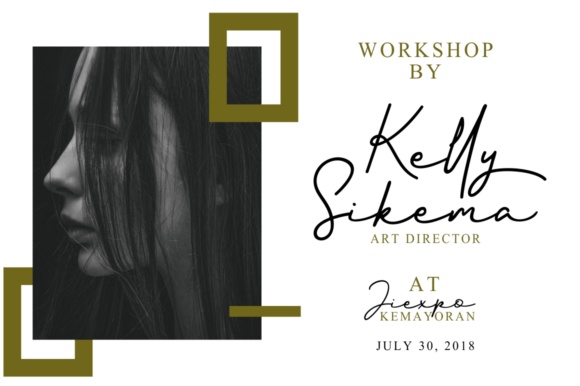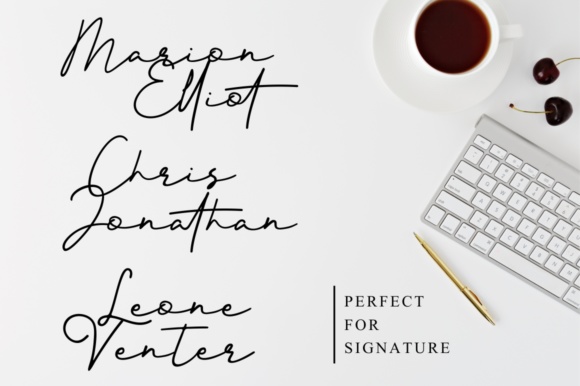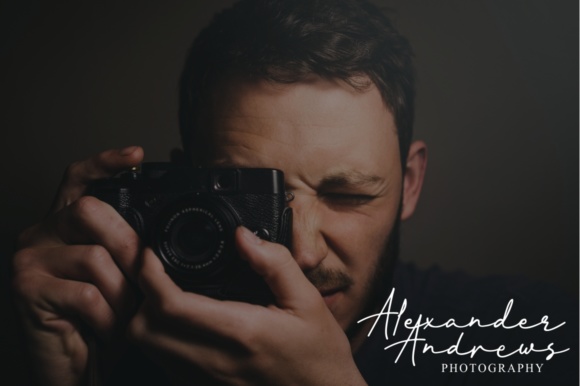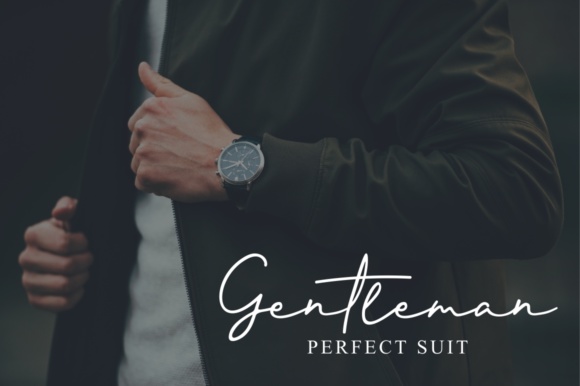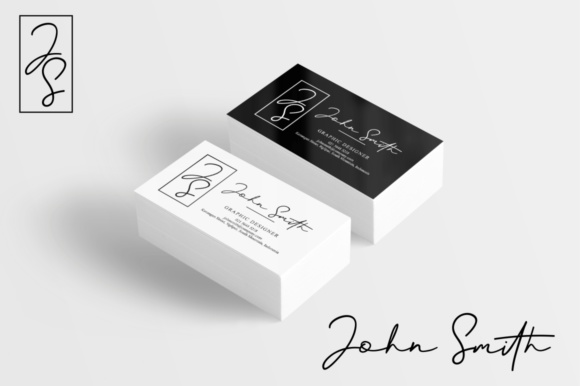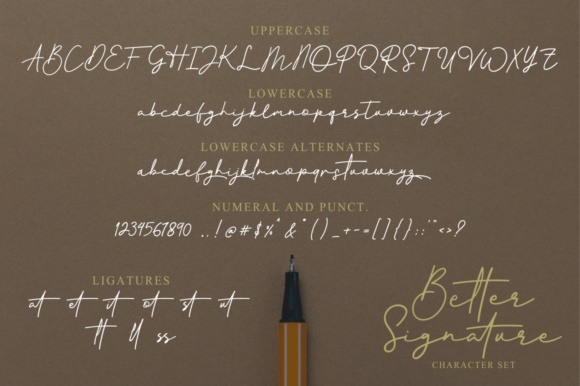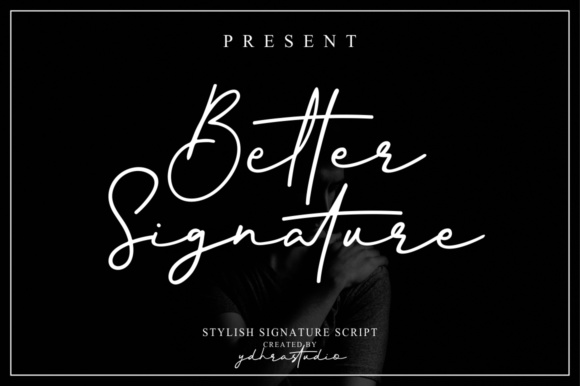
The Quest for the Perfect Signature Font: Enter Better Signature
I’ll never forget the design project that made me fall in love with the Better Signature font. I was working on a branding project for a fashion startup, and I needed a font that would make their logo stand out. I spent hours scouring the internet for the perfect signature font, but nothing seemed quite right. That was until I stumbled upon Better Signature. It’s been a game-changer for my design projects ever since.
An Honest Review of Better Signature
• Versatility: Better Signature is a font that can be used for a wide range of projects, from logos and branding to posters, magazines, and even business cards.
• Elegant and Sophisticated: The font has a sleek, high-end feel that’s perfect for fashion, luxury brands, and creative industries.
• 💡 OpenType Features: Better Signature comes with a range of OpenType features, including glyphs and stylistic alternates, that allow for endless customization.
While Better Signature is an amazing font, it’s not perfect. Here are a few things to keep in mind:
• ⚠️ Legibility at Small Sizes: Like many script fonts, Better Signature can be a bit tricky to read at small sizes. Make sure to test it out at different sizes to ensure it’s legible for your project.
• 🤔 Overuse of Stylistic Alternates: With so many stylistic alternates to choose from, it’s easy to get carried away. Be mindful of how many alternates you use, as too many can make your design look cluttered.
The Story Behind Better Signature
Better Signature was designed by a team of typographers who wanted to create a font that would meet the needs of modern designers. With its elegant and sophisticated feel, Better Signature has become a popular choice for designers around the world.
Q: What is the x-height of Better Signature?
A: The x-height of Better Signature is approximately 50% of the cap height, making it easy to read and versatile for a range of design projects.
Q: Does Better Signature come with a range of weights?
A: Yes, Better Signature comes in a range of weights, from light to bold, making it suitable for a variety of design applications.